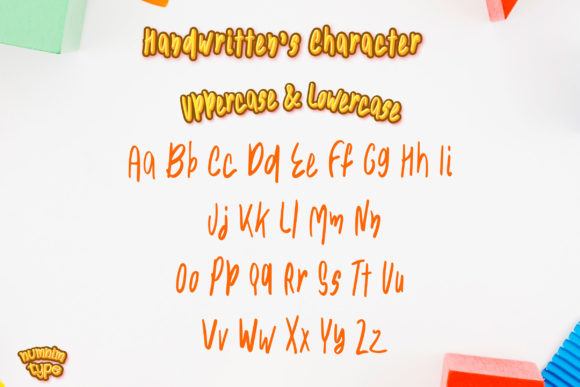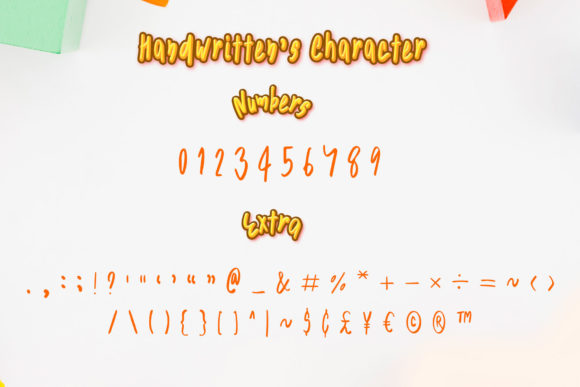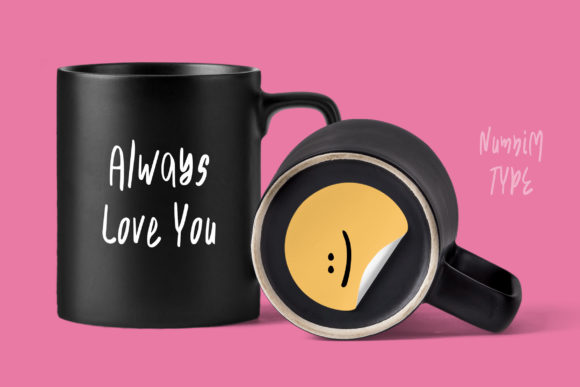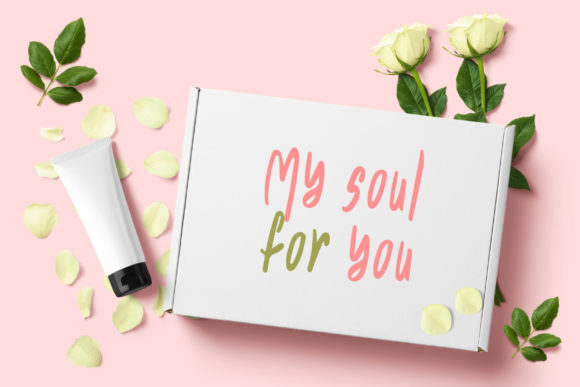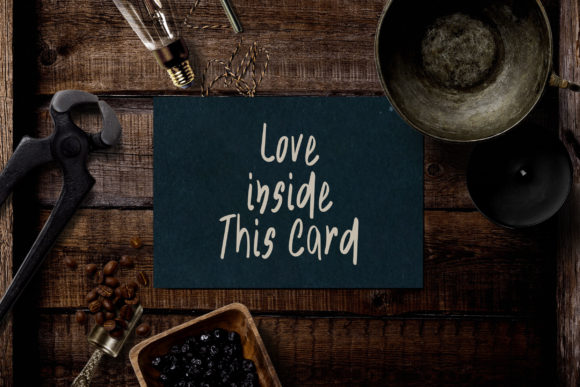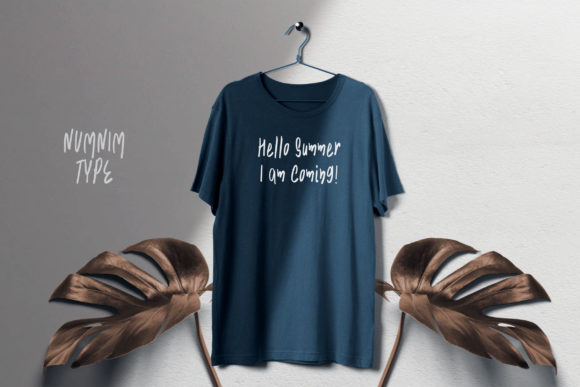
Unlock the Charm of Handwritten Design
Remember the last time you sat down with a blank sheet of paper, a pencil, and a burst of creativity? The feeling of bringing an idea to life, of watching it take shape in your own handwriting, is truly magical. It’s that same sense of personal touch and uniqueness that Handwritten Font brings to digital designs.
Handwritten Font is a beautiful and expressive typeface that captures the essence of handwritten notes and personal letters. Its natural, imperfect style makes it the perfect fit for a wide range of designs, from wedding invitations to social media graphics. Whether you’re a seasoned designer or just starting out, Handwritten Font is a valuable tool that will help you add a touch of personality to your work.
Key Features of Handwritten Font
- Font Styles: Available in various font styles, including casual, cursive, and script, to suit different design needs.
- Unique Characteristics: Handwritten font features authentic, hand-written letterforms with subtle imperfections, giving it a unique, personal touch.
- Character Set: Includes a comprehensive character set, including uppercase and lowercase letters, numbers, and punctuation marks.
Handwritten Font Review
I recently worked with the “Handwritten Font” and have to say it’s a mixed bag. On one hand, it has some amazing qualities that make it shine ✨.
- It’s perfect for creating a personal and emotive feel in your designs.
- The font is incredibly versatile and can be used for a wide range of projects, from wedding invitations to children’s book illustrations.
- The varying line widths and styles give the font a unique, hand-drawn look that’s hard to replicate with other fonts.
However, there are some limitations that might make it less suitable for certain projects ⚠️.
- The font can be difficult to read at small sizes, which may limit its use in situations where text needs to be concise.
- The font’s cursive nature can make it challenging to align and justify text properly.
- Some users may find the font’s imperfections and inconsistencies distracting, particularly in professional or formal contexts.
Overall, I’d say the “Handwritten Font” is a great choice for projects where you want to add a touch of personality and whimsy. Just be mindful of its limitations and use it judiciously. With the right design skills and project requirements, it can be a real showstopper ✨.
Tips for Getting the Most Out of Handwritten Font
Use handwritten font to add a personal touch to your designs, create a sense of warmth and authenticity, and add visual interest to your text.
Experiment with different font sizes, colors, and styles to create unique and eye-catching designs.
Use handwritten font for:
- Invitations and event announcements
- Personalized gifts and stationery
- Social media graphics and ads
Alternatives to Handwritten Font
1. Brush Script Font
Brush Script Font is a decorative script font that mimics the look of handwriting with a brush-like feel. It is ideal for use in titles, headings, and other display text where a touch of elegance is needed. Compared to Handwritten Font, Brush Script Font has a more refined and polished look, making it suitable for formal designs.
Pacifico Font is a beautiful script font that has a relaxed and casual feel to it. It is perfect for use in body text, quotes, and other areas where a friendly and approachable tone is desired. Compared to Handwritten Font, Pacifico Font has a more fluid and organic feel, making it ideal for designs that require a sense of informality.
Great Vibes Font is a modern script font that has a playful and energetic feel to it. It is ideal for use in titles, headings, and other display text where a sense of excitement and enthusiasm is needed. Compared to Handwritten Font, Great Vibes Font has a more dynamic and attention-grabbing look, making it suitable for designs that require a high level of engagement.